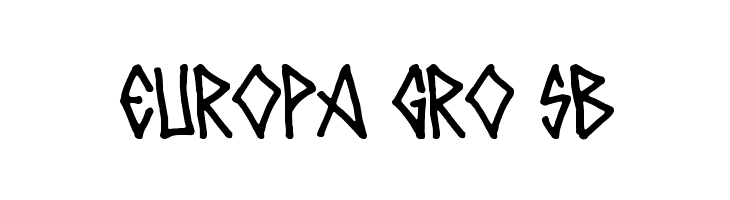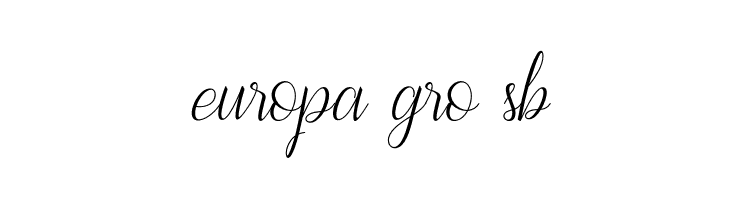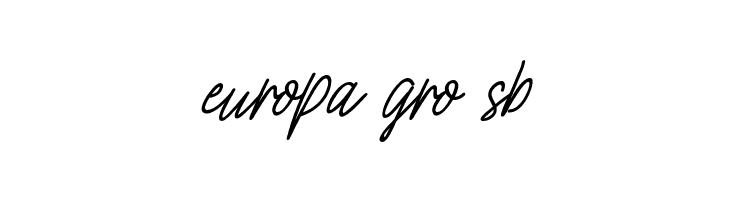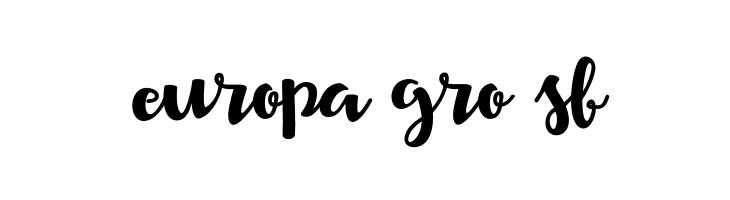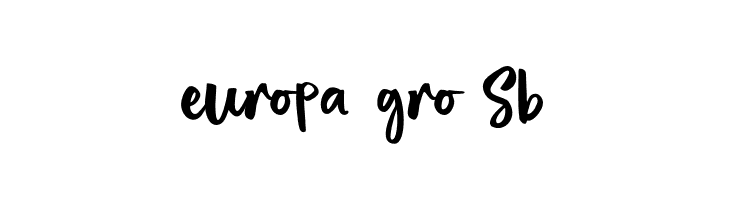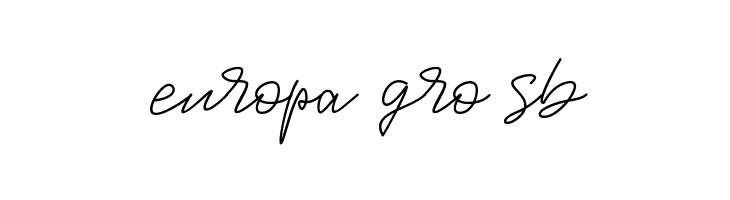
A bold, edgy font with sharp, angular lines and a hand-drawn quality.
An elegant script font with flowing, interconnected letters and delicate flourishes.
A fluid, elegant handwritten font with a sophisticated and creative style.
A slanted, flowing script font with elegant, connected strokes.
A bold, expressive script font with dynamic, flowing letterforms.
A bold and expressive script font with dynamic and playful letterforms.
A bold, flowing script font with elegant, fluid strokes.
A lively, cursive font with smooth, flowing strokes and a handwritten style.
A bold, playful font with thick, rounded strokes and a hand-drawn feel.
A flowing, handwritten script font with elegant, connected strokes.